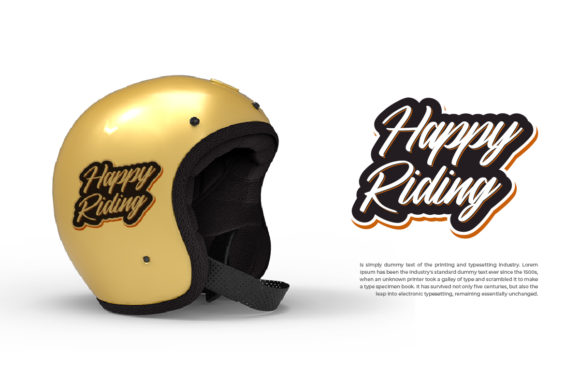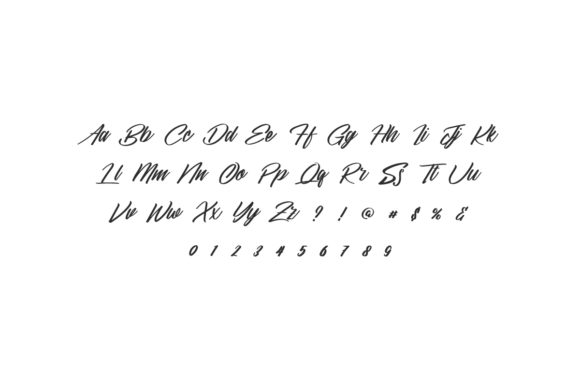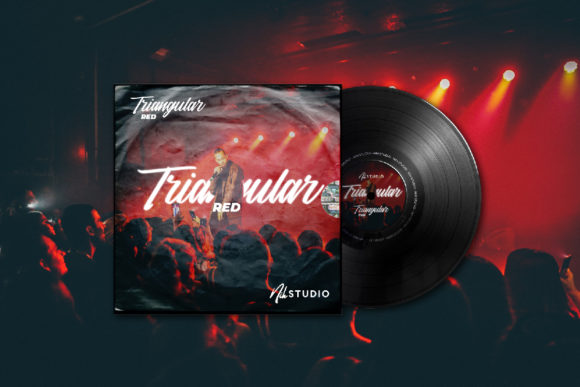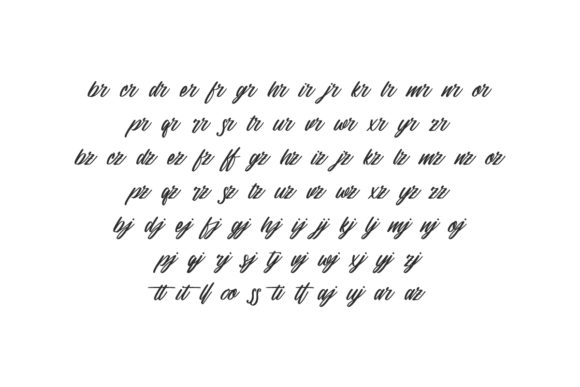
Sandels Font
About Sandels Font
Sandels is a trendy brushed calligraphy font. This font reads as strong, confident, and dynamic and can add tons of nostalgic character to your designs.